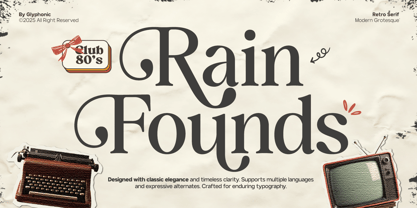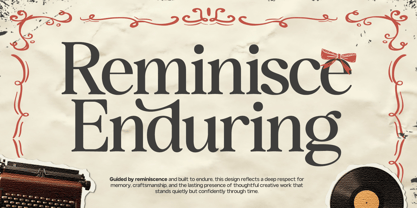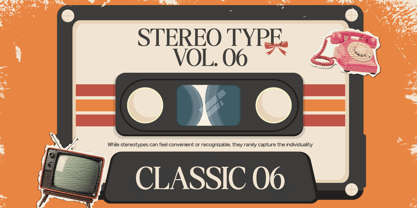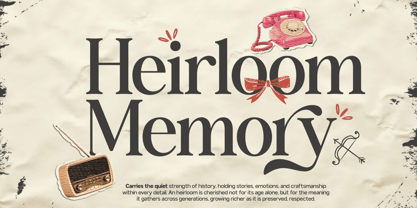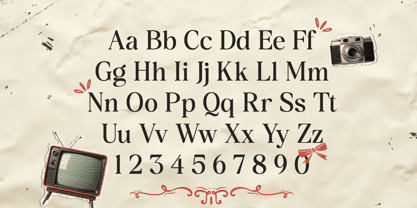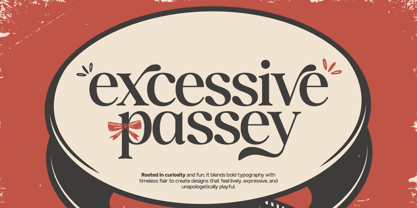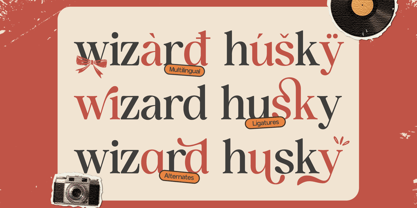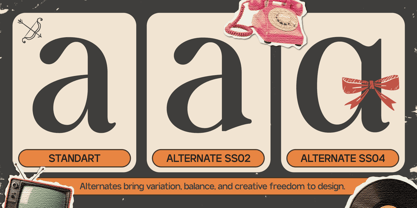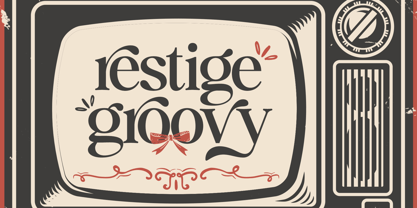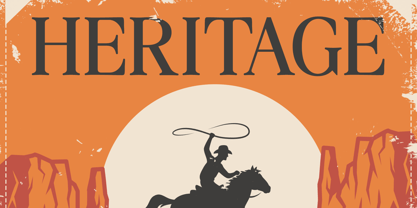
GC Rain Founds
by Onyx Studio
The GC Rain Founds Font Family was designed by Muhammad Hafiizh Solana and published by Onyx Studio. GC Rain Founds contains 2 styles and family package options. More about this family
GC Rain Founds – Elegant Retro Serif is a sophisticated serif typeface inspired by timeless retro aesthetics and refined classic typography. Designed with graceful curves, distinctive serifs, and balanced contrast, Rain Founds delivers an elegant yet nostalgic character that feels both vintage and relevant in modern design. Built with carefully crafted proportions and expressive details, GC Rain Founds transitions beautifully from delicate editorial settings to bold headline compositions. Its retro charm adds personality and warmth, while its structured construction ensures clarity, readability, and visual harmony across print and digital applications. Perfect for branding, fashion editorials, wedding designs, boutique packaging, lifestyle magazines, and artistic layouts, GC Rain Founds brings a sense of heritage and elegance into contemporary visual systems. Whether used for statement titles or refined body text, it offers a distinctive typographic presence with timeless appeal. Features: - Uppercase & Lowercase - Numbers & Punctuation - Elegant Retro Serif Construction - Multilingual Support - Carefully Balanced Contrast Bring vintage sophistication, expressive charm, and refined elegance into your creative projects with GC Rain Founds – Elegant Retro Serif.
Designers: Muhammad Hafiizh Solana
Foundry: Onyx Studio